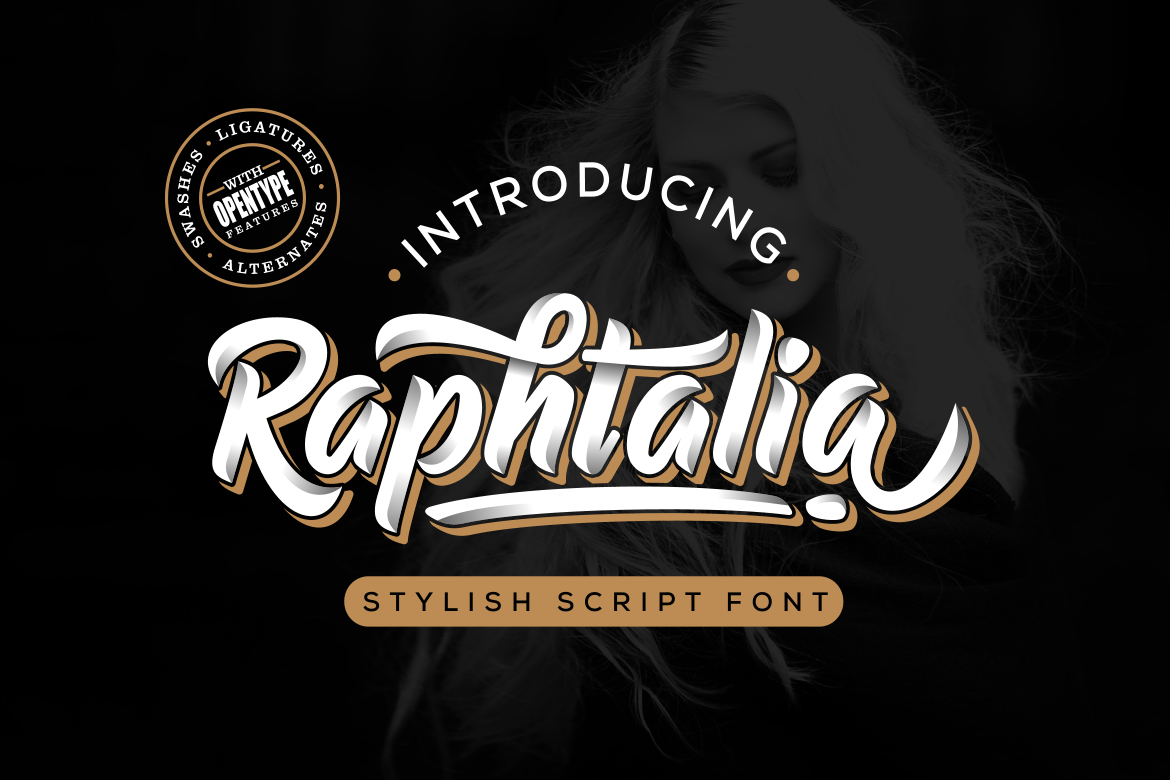
Raphtalia Font
About Raphtalia
Raphtalia is a fun and bold font with a unique vintage appeal! Designed with a distinct retro feel and lovely elements,